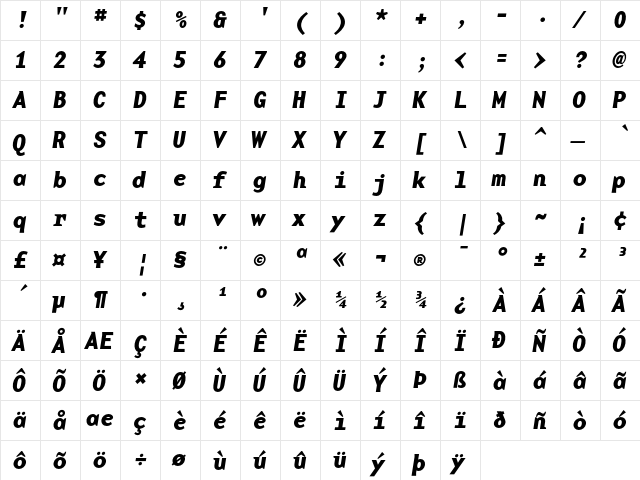
BaseMono Bold Italic
| Foundry | C) Emigre Graphics; designed by Zuzana Licko |
Design Context for BaseMono Typeface
BaseMono brings the precise, column-aligned rhythm of monospaced typography to designs that value technical clarity and systematic order. The slanted form adds forward momentum and visual energy. Its bold stroke weight gives it real presence on the page.
A natural fit for code editors, technical documentation, developer-focused branding, and terminal-inspired UI.
Pro Tip: Pair BaseMono with a proportional sans for UI contexts where code-style labels and regular body copy need to coexist.